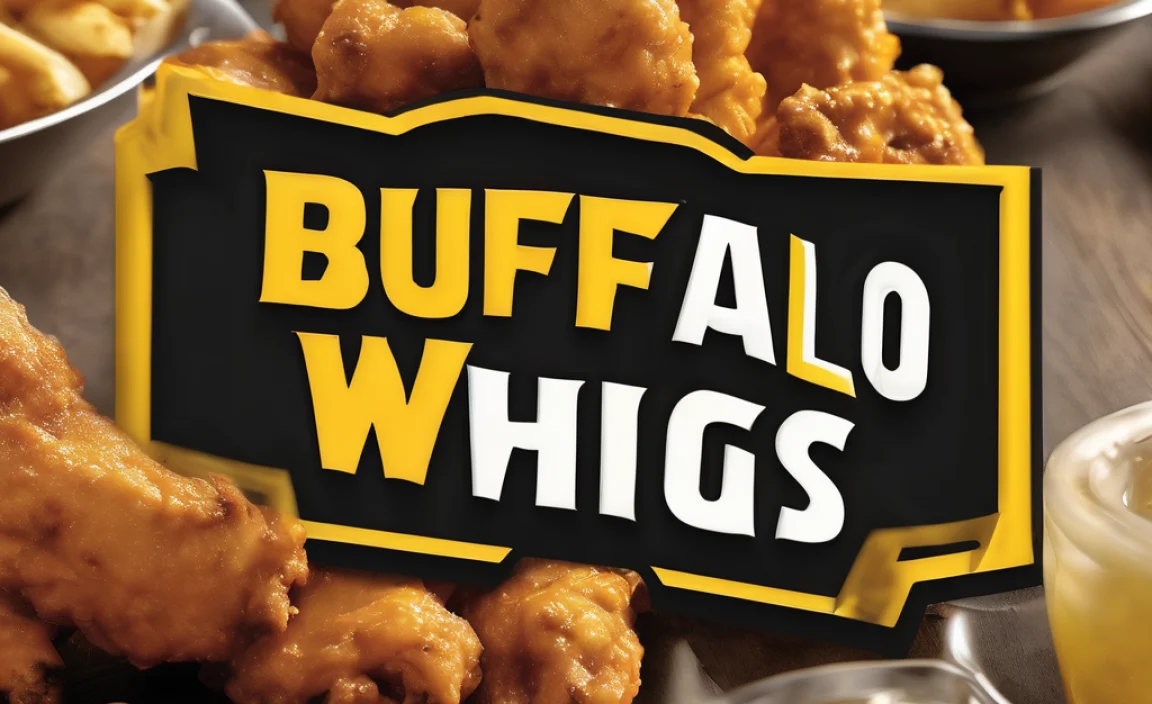
Have you ever noticed the font used by Buffalo Wild Wings? It’s bold and exciting. Fonts can change how we feel about a place or a brand. The Buffalo Wild Wings Font makes us think of fun and adventure. Let’s explore why this font is special and why it matters.
Key Takeaways
- Buffalo Wild Wings Font is bold and eye-catching.
- Fonts can influence how we feel about brands.
- Choosing the right font is important for businesses.
- Buffalo Wild Wings Font helps create a fun atmosphere.
- Fonts have their own unique styles and uses.
Discovering Buffalo Wild Wings Font
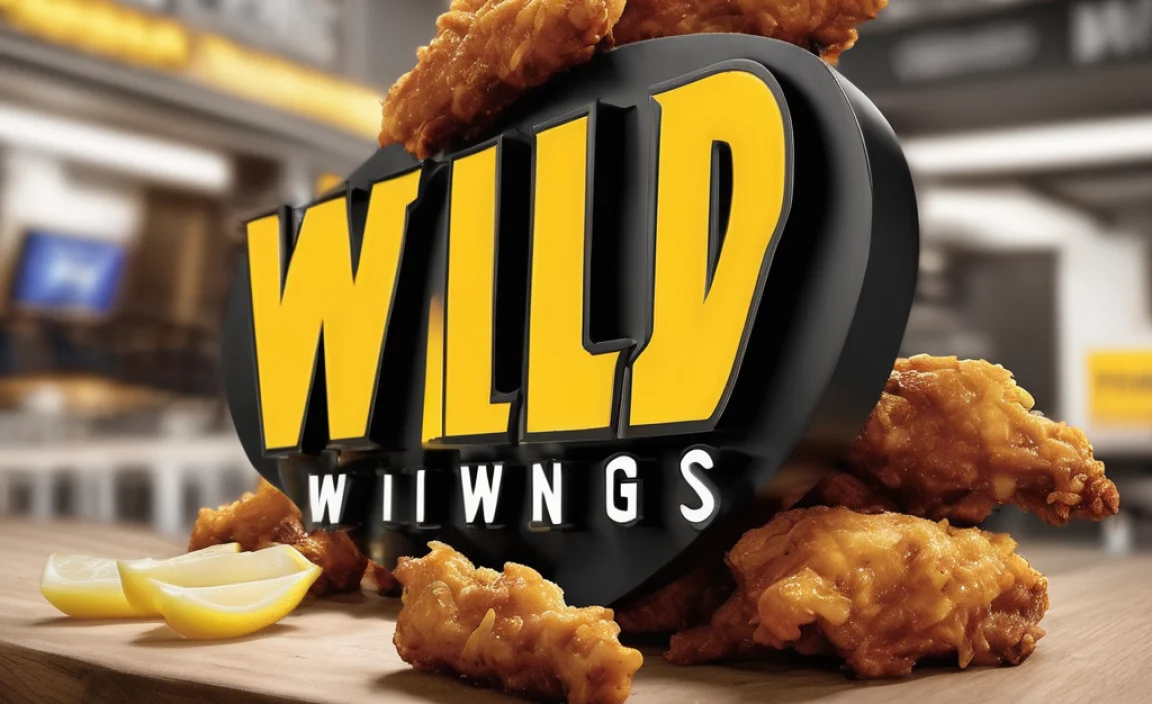
Buffalo Wild Wings is known for sports, wings, and fun. But have you noticed their font? It’s not just letters. It’s a style that grabs attention. The font is bold, making it perfect for a place full of excitement. When you see it, you might feel ready to watch a game or eat some wings. That’s the power of a good font. It sets the mood before you even enter the restaurant.
- Bold fonts stand out.
- Fonts can create excitement.
- Buffalo Wild Wings uses fonts to attract customers.
- Fonts can match a brand’s style.
- Letters can be art.
Buffalo Wild Wings uses their font to make you feel the energy. It’s more than just words on a sign. It’s a part of their brand. Fonts can make you curious. They can invite you to see what’s inside. Buffalo Wild Wings Font does just that. It makes you want to be part of the action.
Why Fonts Matter in Branding
Why do some stores have fancy lettering? Why are some bright and bold? Fonts tell a story without speaking. For Buffalo Wild Wings, it’s about fun and flavor. When a font is chosen, it fits the brand’s personality. Imagine reading a scary story with a silly font. It wouldn’t feel scary at all, right? That’s why choosing the right font is important. It affects how we think and feel.
How Buffalo Wild Wings Font Stands Out
Buffalo Wild Wings Font isn’t just any font. It’s made to stand out. It’s bold and easy to read. This makes it great for signs and menus. People can see it from far away and know there’s something exciting happening. A font like this helps a restaurant be memorable. When people remember the font, they remember the place too.
The Role of Fonts in Customer Experience
Have you ever walked past a restaurant and felt drawn in? Fonts play a role in that. They set the tone for what you’ll experience inside. Buffalo Wild Wings Font helps tell a story of fun times and tasty food. Next time you see a font like this, think about how it makes you feel. Does it make you curious or excited? That’s the magic of fonts.
Comparing Buffalo Wild Wings Font Styles
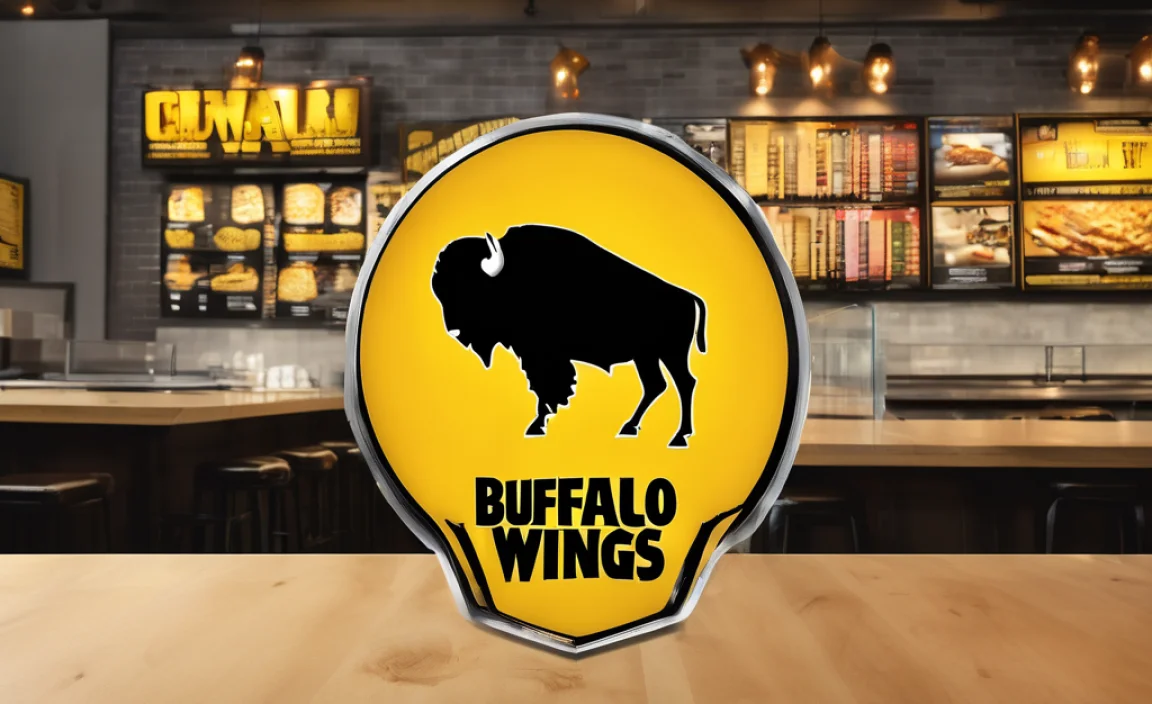
Buffalo Wild Wings Font isn’t the only font that makes an impact. Let’s compare it with other popular restaurant fonts. This can help us see why it’s special. We’ll look at different styles and see what makes each one unique. Each font tells its own story and invites you in different ways.
| Font | Style | Brand | Feel |
|---|---|---|---|
| Buffalo Wild Wings Font | Bold, Fun | Buffalo Wild Wings | Exciting |
| McDo Style | Classic, Simple | McDonald’s | Friendly |
| Taco Bell Bold | Edgy, Modern | Taco Bell | Adventurous |
| Pizza Hut Script | Soft, Cozy | Pizza Hut | Welcoming |
- Fonts create unique brand identities.
- Bold fonts attract attention.
- Different styles evoke different feelings.
- Fonts can become iconic over time.
- Choosing the right font is crucial for brands.
From this comparison, we see how fonts shape our experiences. Buffalo Wild Wings Font uses boldness to call out to sports fans and food lovers. In contrast, other brands use different fonts for their own unique vibes. When a font matches a brand’s energy, it creates a lasting impression.
Understanding Font Styles
Fonts come in many styles. Some are serious, while others are playful. But what makes a font fit a brand? It’s all about the feeling it gives. Imagine wearing a clown costume to a business meeting. It wouldn’t fit, right? The same goes for fonts. They need to match the brand’s tone and purpose. That’s why Buffalo Wild Wings Font is so effective. It matches the brand’s lively spirit.
How Fonts Influence Our Choices
Do you ever choose a restaurant because of how it looks? Fonts can influence that choice. They can make a place seem more inviting. Or they can make it feel out of reach. Buffalo Wild Wings Font draws in people who love sports and fun. It says, “Come join us for a great time!” When fonts work well, they help us make decisions without even realizing it.
Creating Memorable Brand Experiences
Brands want to be remembered. That’s why they choose their fonts carefully. A memorable brand needs a memorable font. Buffalo Wild Wings creates a lasting impression with their bold style. People remember their experiences there. And the font is part of that memory. It’s like a friendly invitation that says, “Come back soon!” That’s how brands use fonts to leave a mark.
Question: Do all brands need a unique font?
Answer: Not all brands need a unique font, but having one can help. A unique font like Buffalo Wild Wings Font makes a brand stand out. It creates a distinctive identity that customers remember.
Question: How do brands choose the right font?
Answer: Brands choose fonts based on their personality and target audience. They consider how the font will make people feel. A font like Buffalo Wild Wings Font matches the fun, energetic vibe of the brand. This helps attract the right customers.